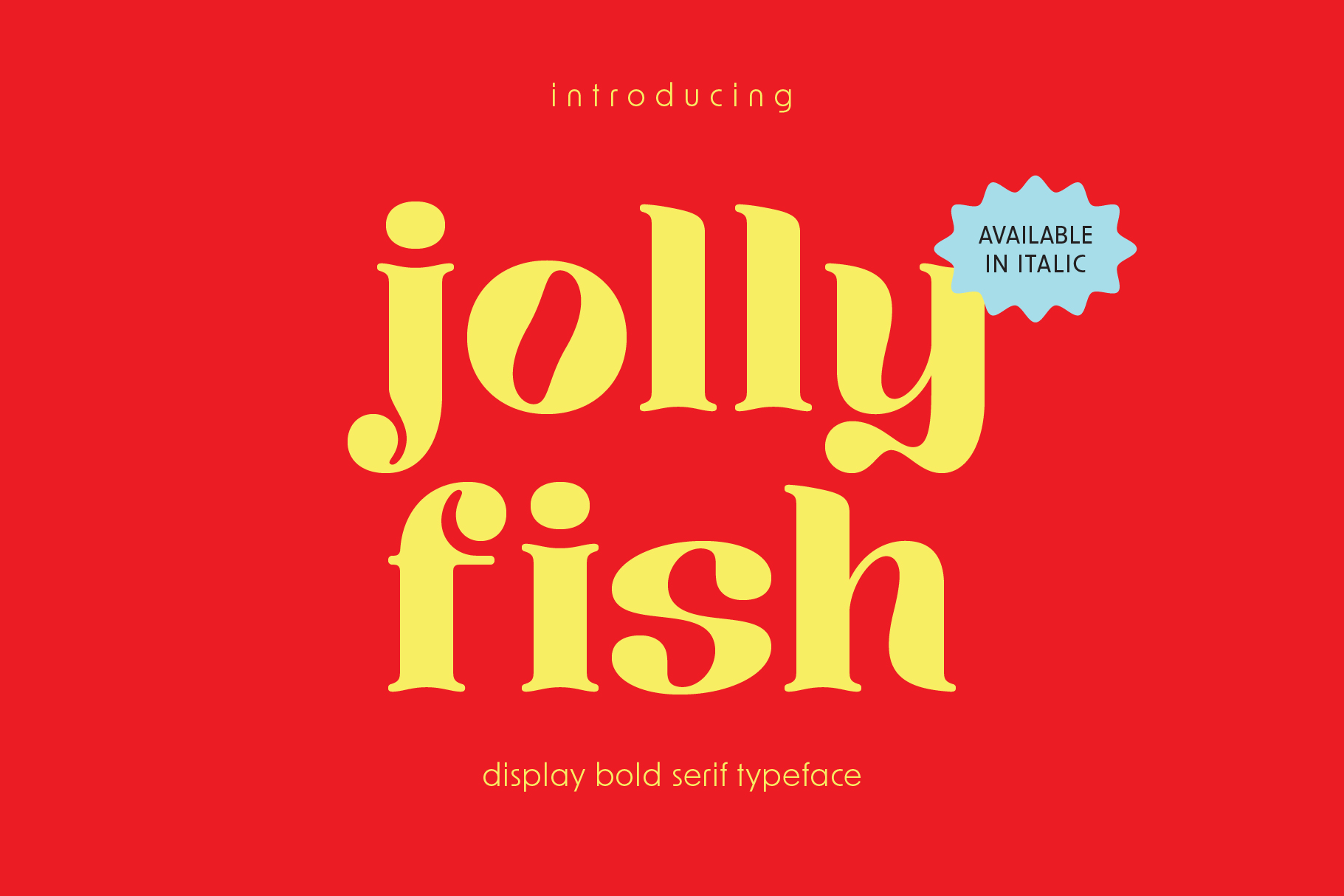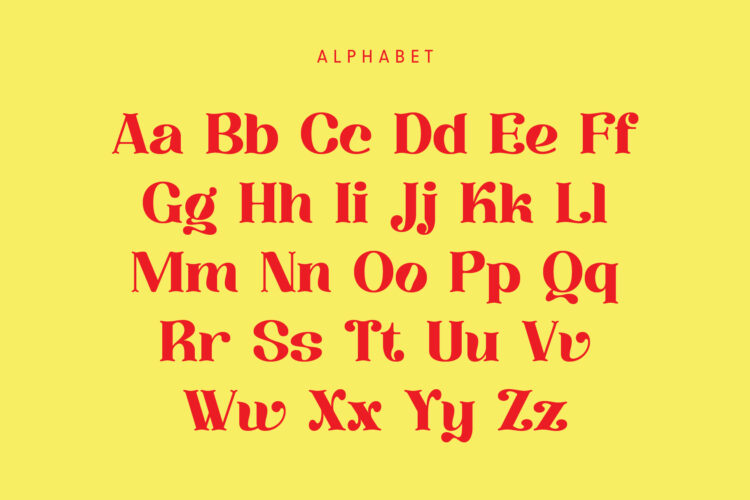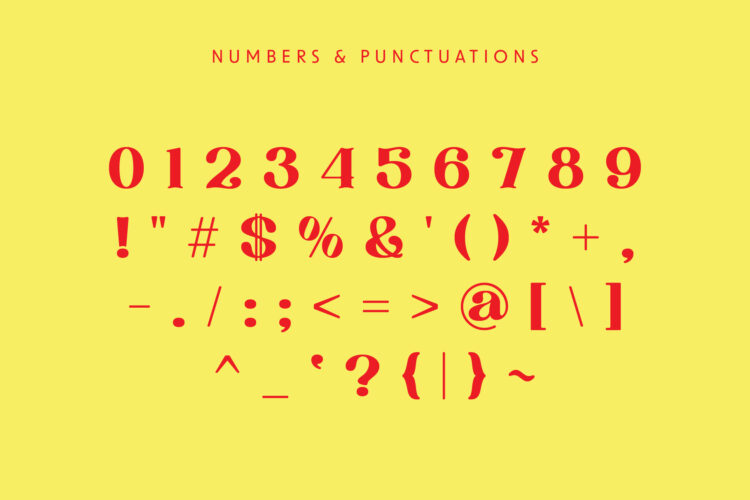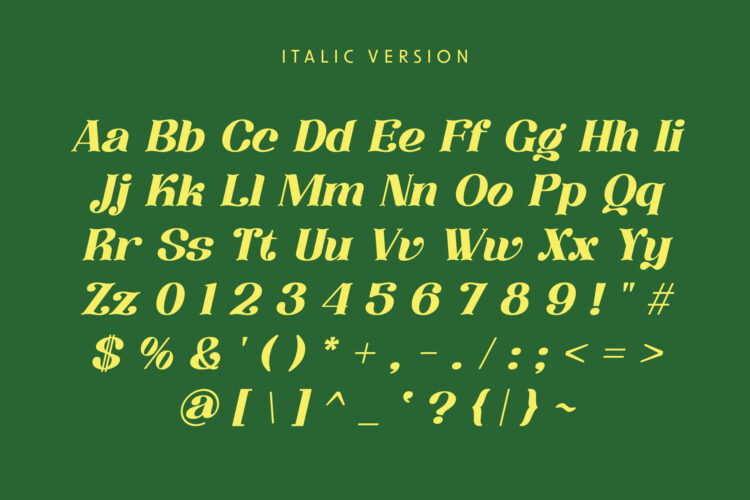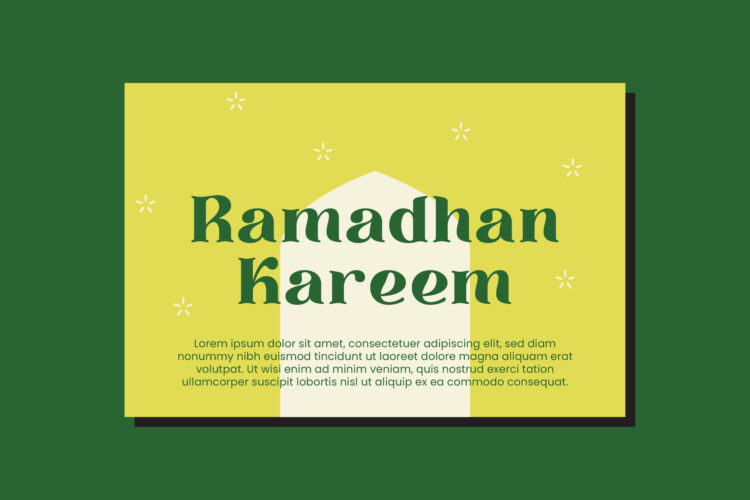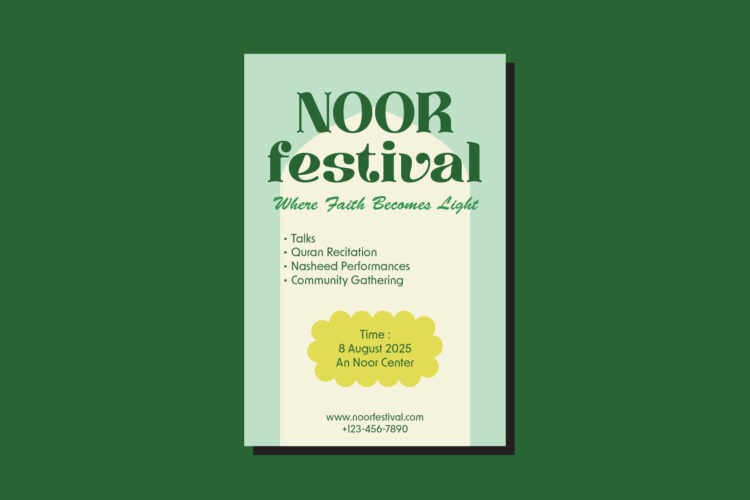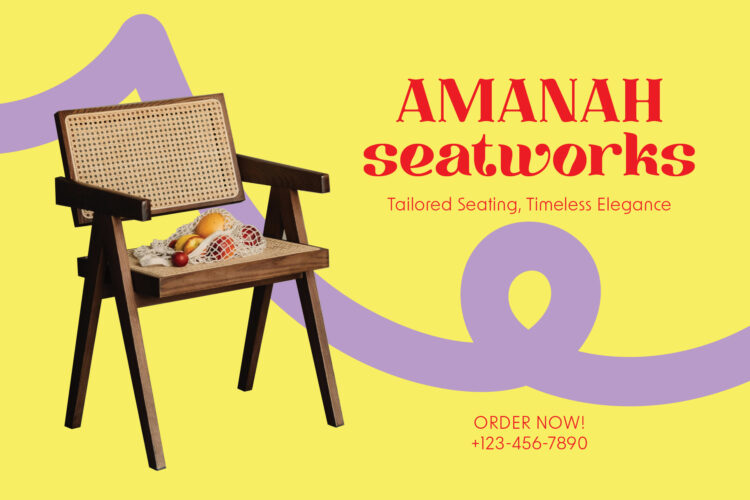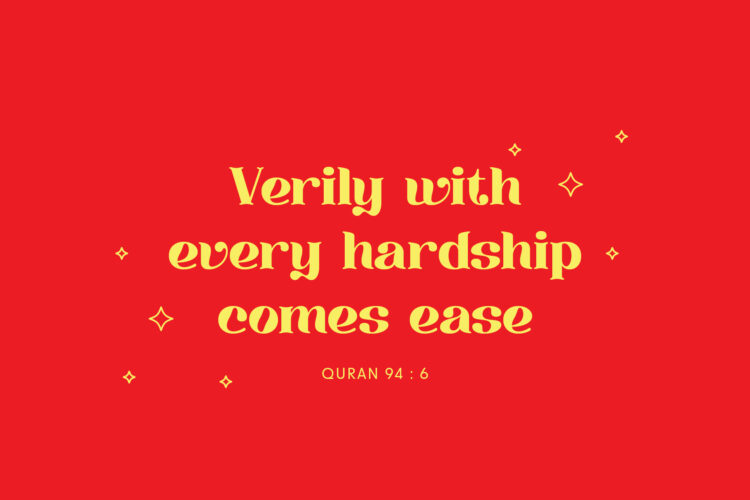
Jollyfish brings bold, playful style to every design. Its thick, rounded shapes catch the eye. Use it for children’s magazines, bright posters, fun stickers, quirky merchandise, or playful packaging. Jollyfish adds a cheerful touch that always stands out.
Jollyfish gives you all letters A–Z, numbers, and basic punctuation. It also includes italics for each character. You get flexibility to shape your ideas just how you want.
Jollyfish – Display Font